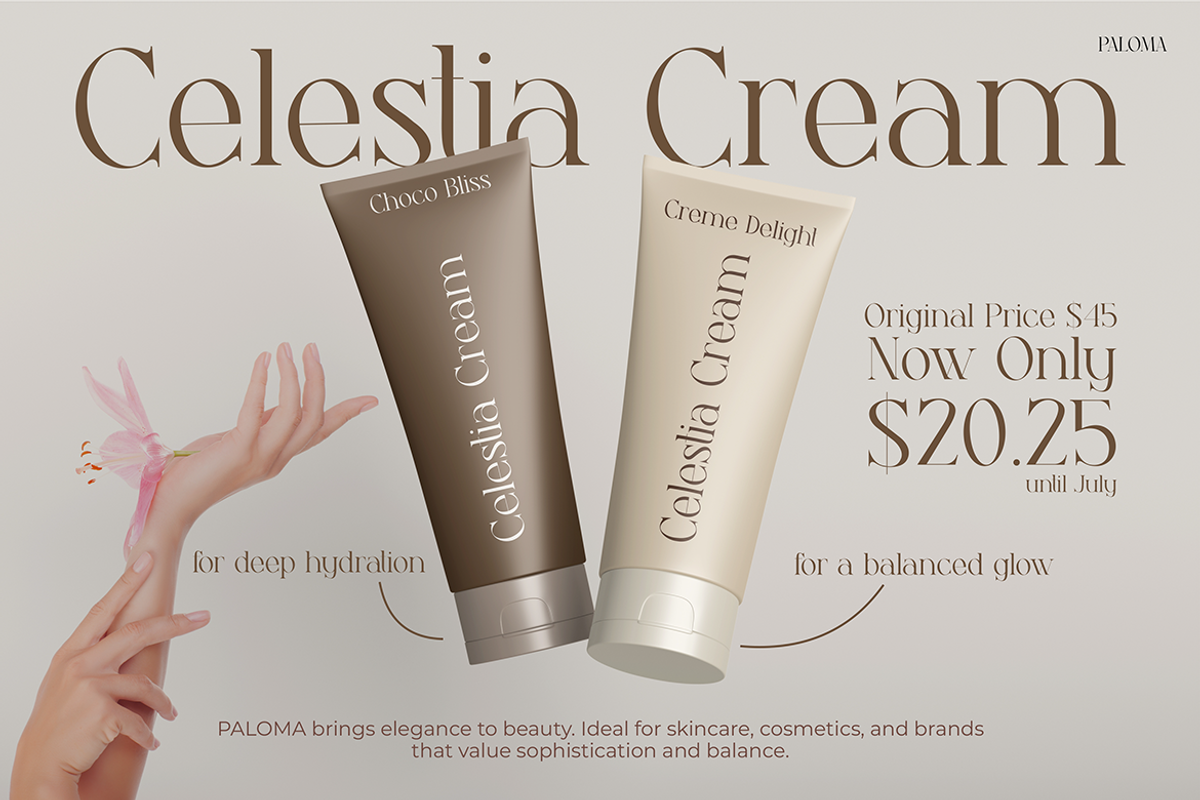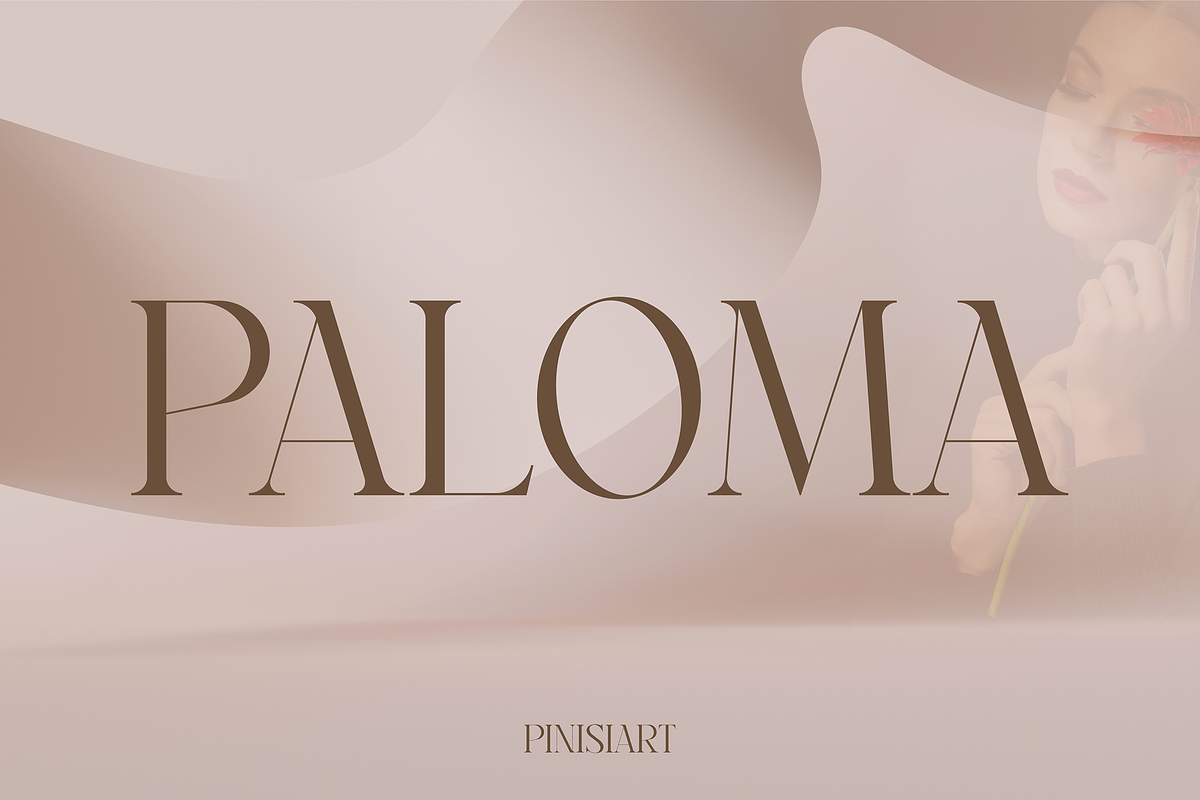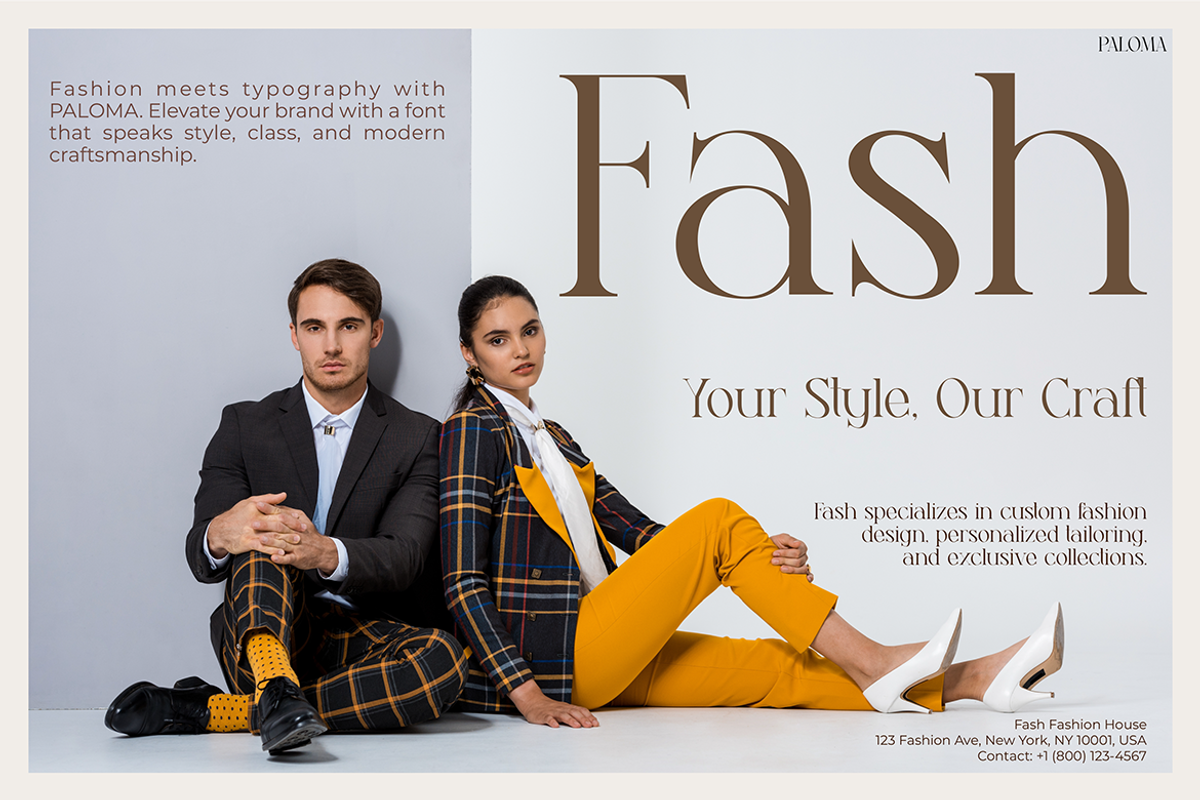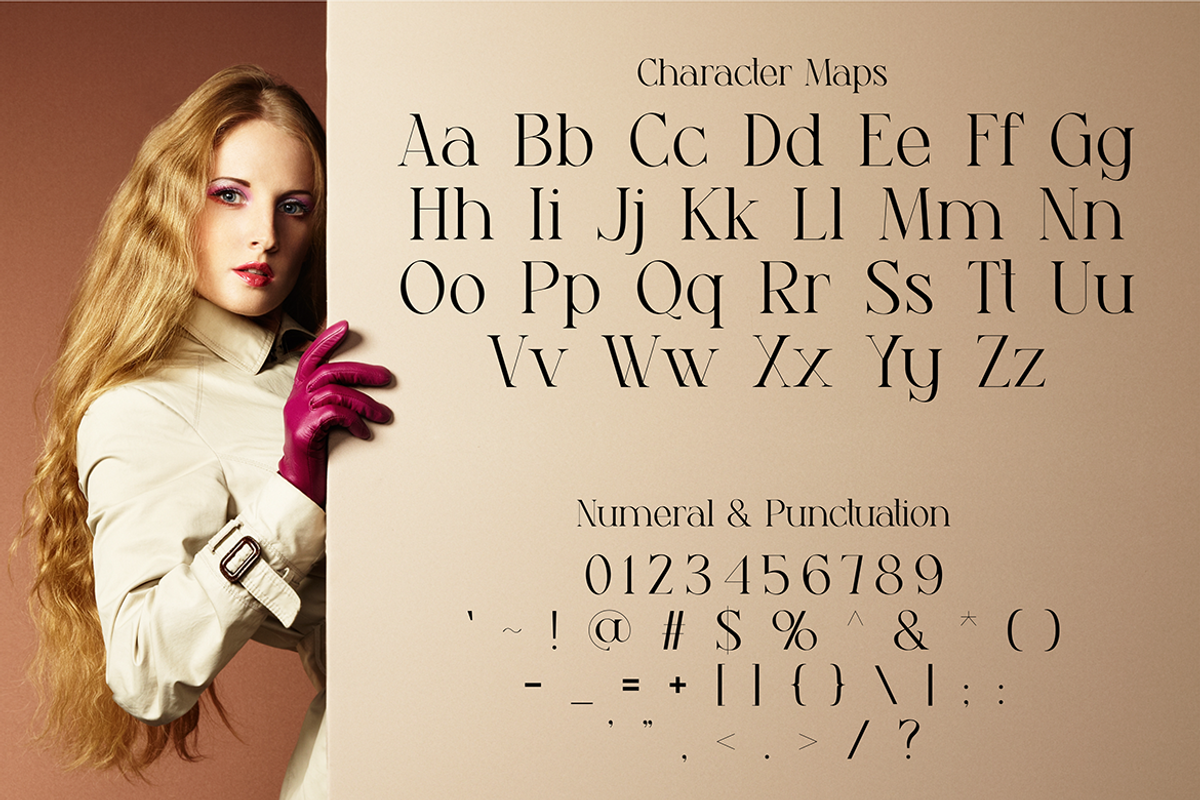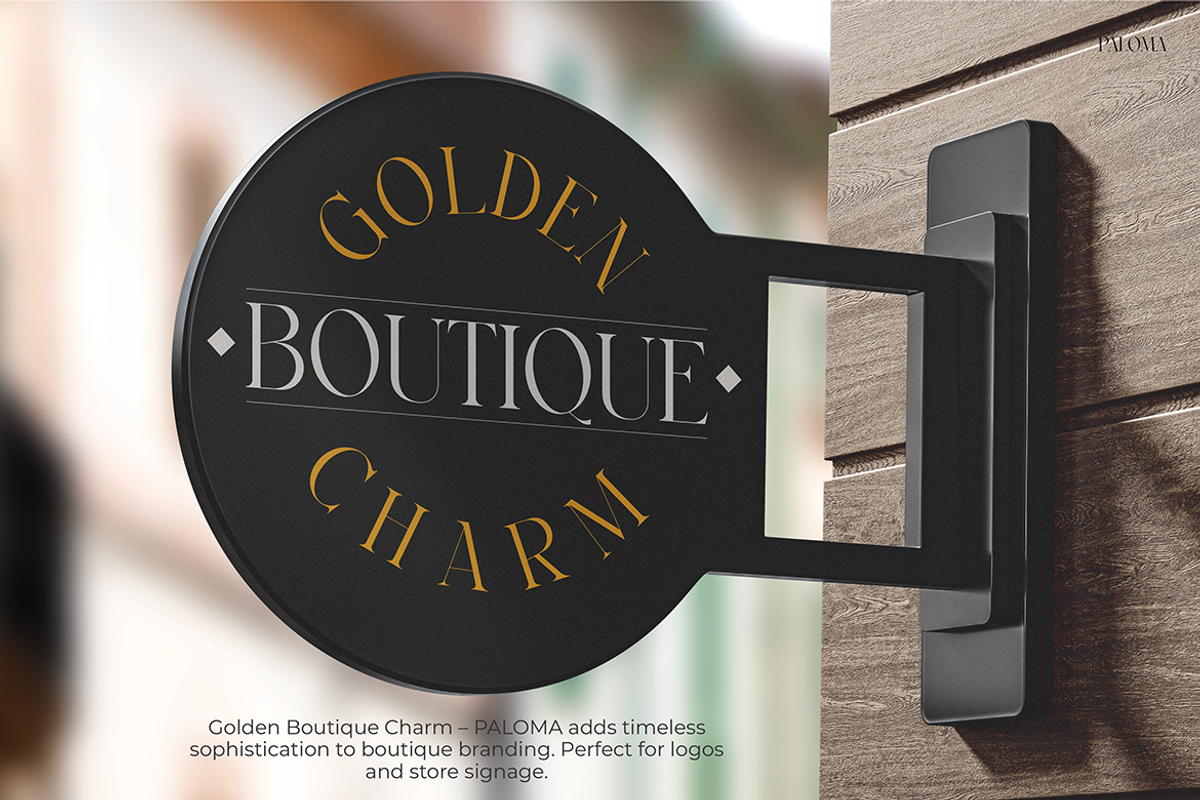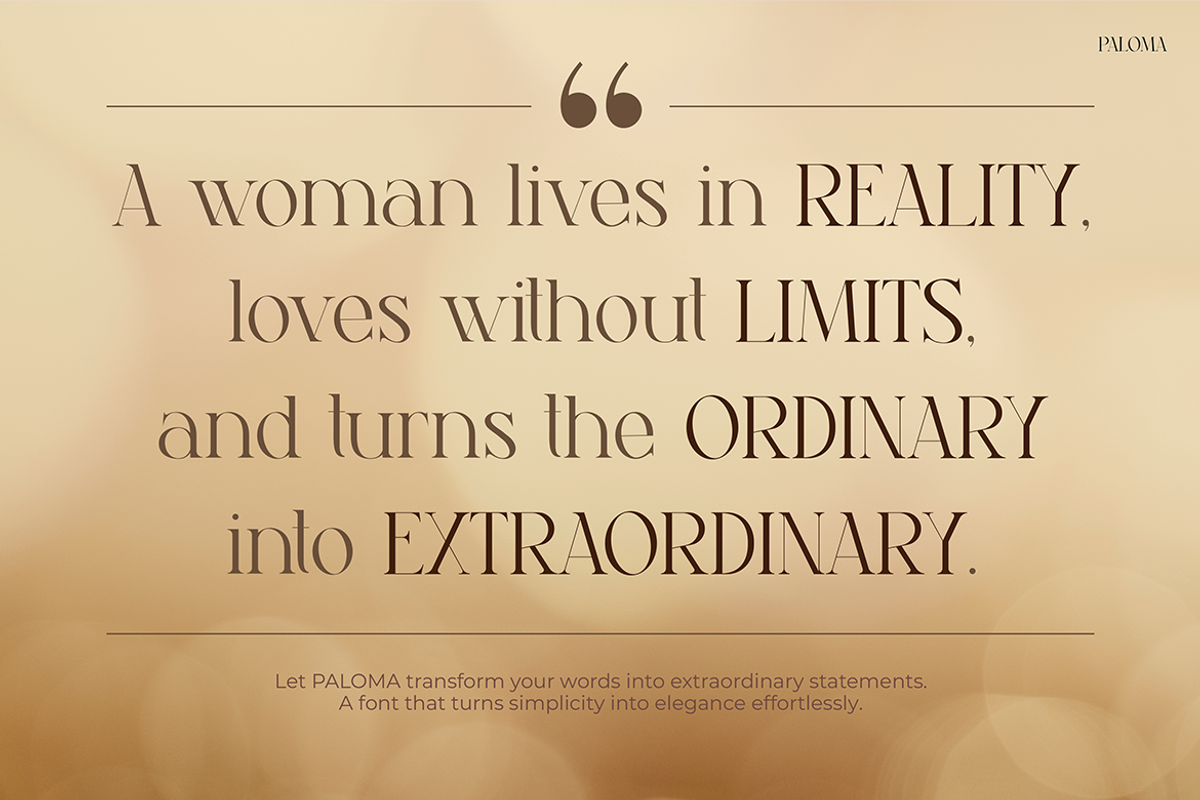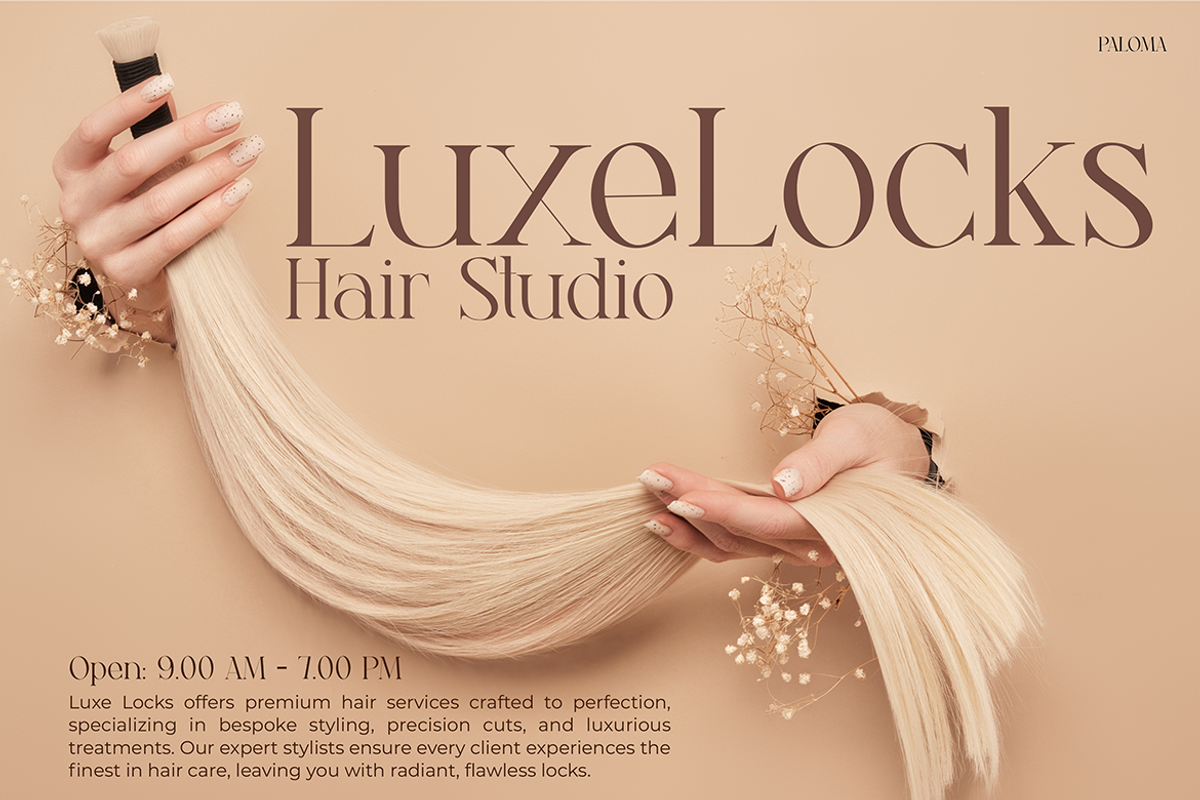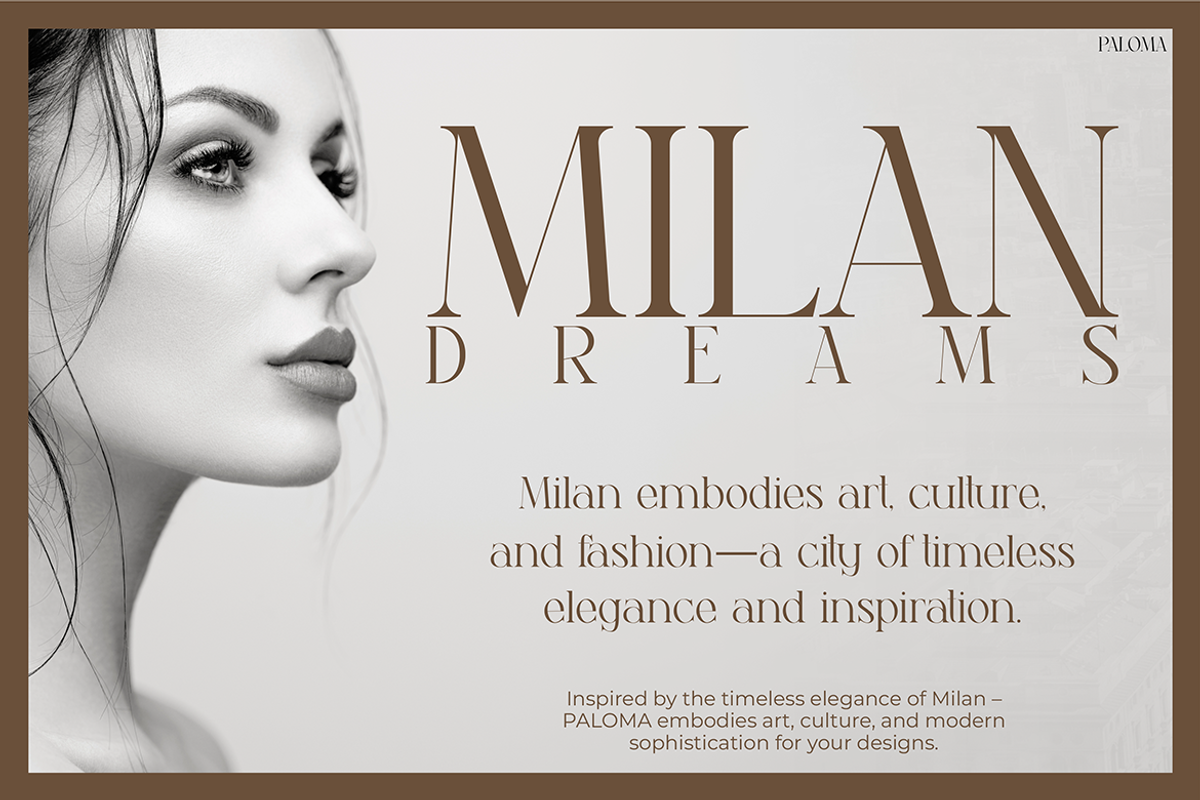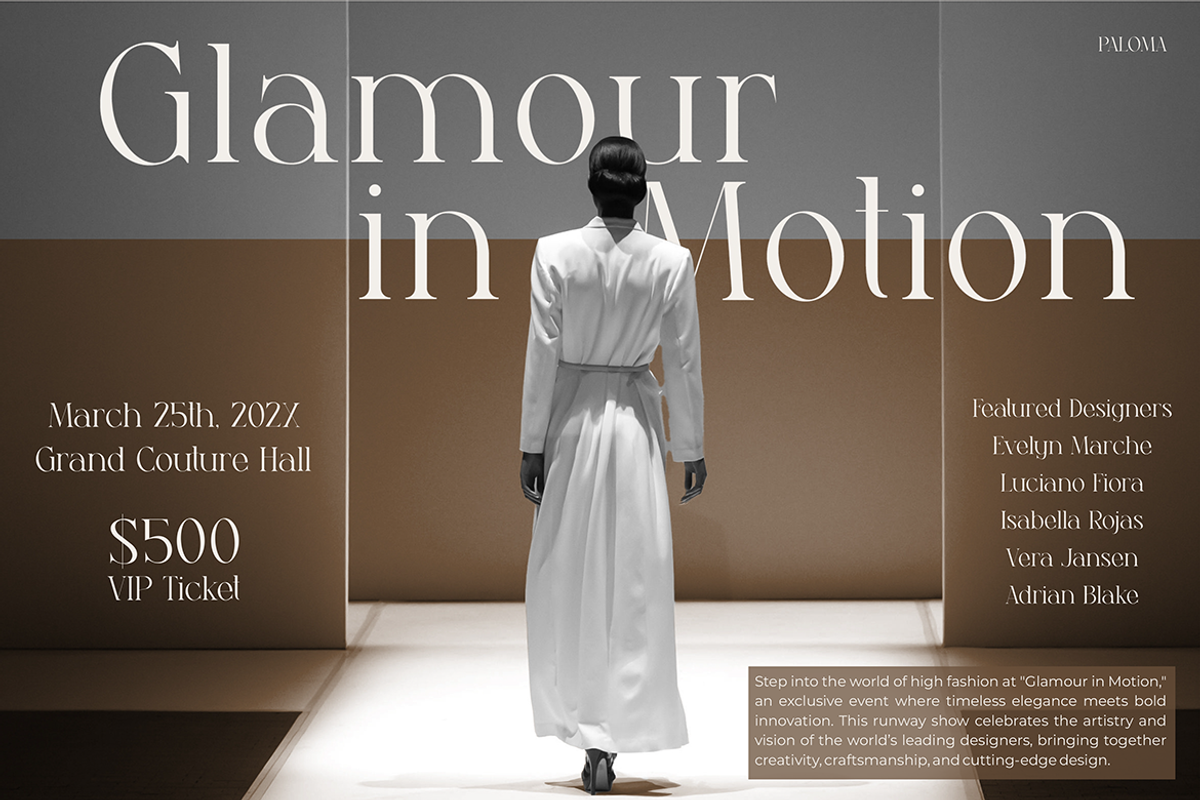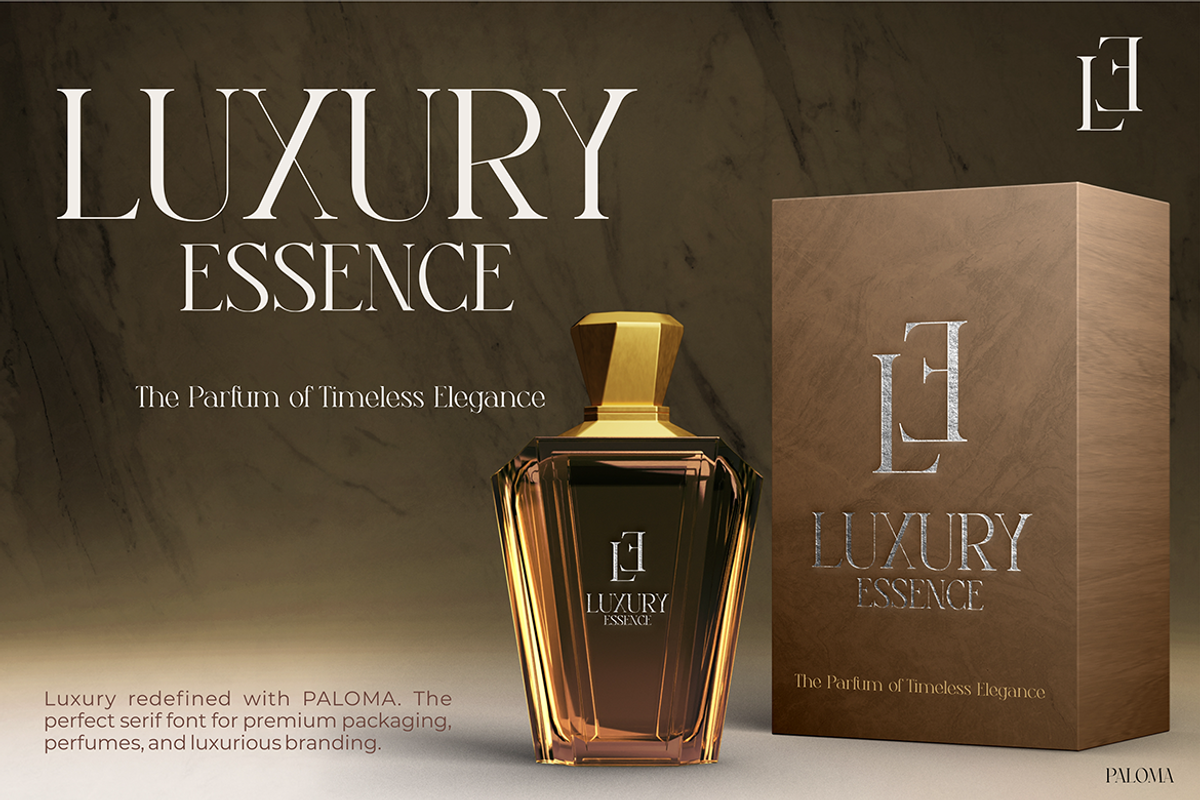
PALOMA
Instagram Font PALOMA combines sleek elegance with modern design, making it perfect for enhancing any creative project. Its clean lines and smooth curves create a timeless look, which adds sophistication to both digital and print designs. The font balances simplicity and luxury, allowing designers to use it across various applications, from branding to social media.
Its minimalist design seamlessly integrates into projects that require subtle sophistication. For instance, fashion brands, beauty products, and lifestyle content can benefit from its refined style. The font ensures readability with generous spacing between letters while maintaining a high-end appeal. Designers choose PALOMA to gently draw attention without overwhelming their layouts, making it ideal for those seeking understated elegance. Additionally, the font works well as a focal point in headers or as a complement to more decorative elements.
What sets PALOMA apart is its ability to adapt to different moods and styles. Whether you are creating bold headlines or delicate captions, the font retains its luxurious and polished look. Its timeless design ensures that your work will remain visually appealing for years, making it an excellent investment for creative professionals.